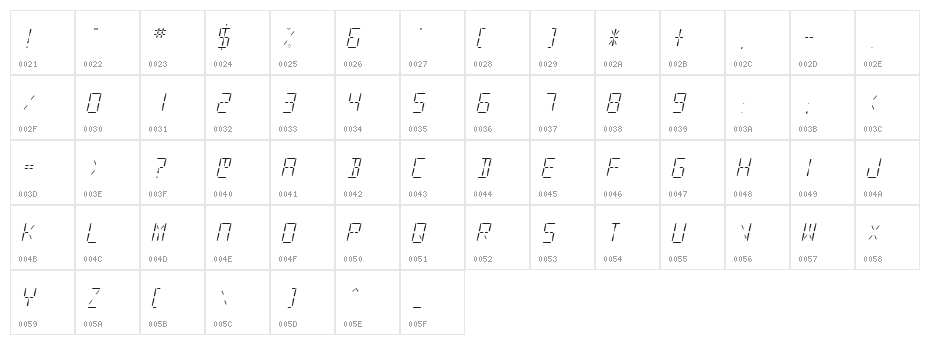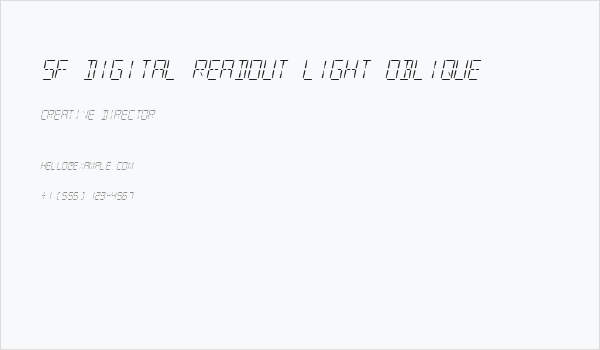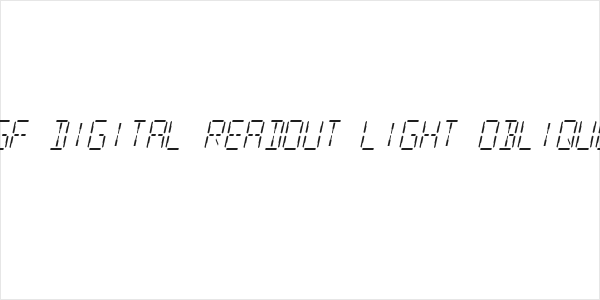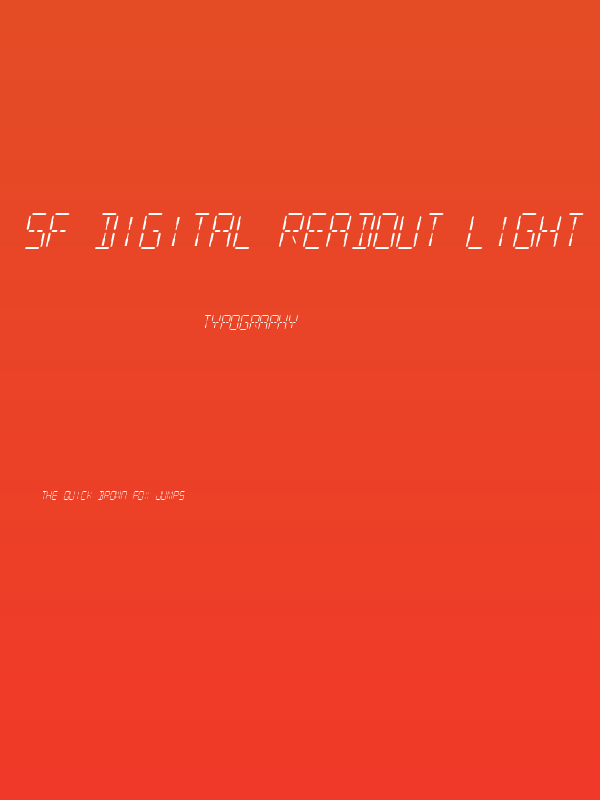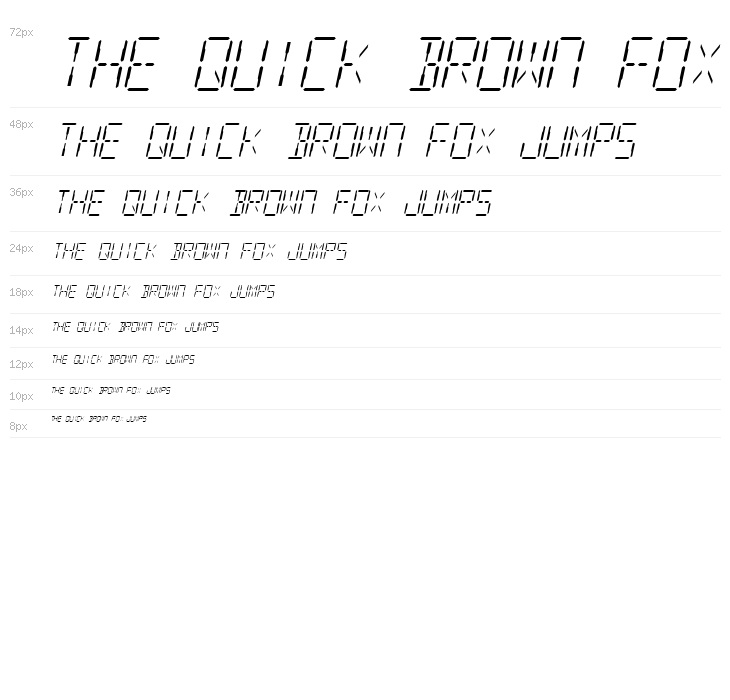
SF Digital Readout Light Oblique Font
SF Digital Readout Light Oblique Description
This font features a digital, futuristic style reminiscent of LED or LCD displays. The characters are composed of segmented lines, giving them a mechanical and technical appearance. The oblique angle adds a dynamic and modern touch, enhancing the sense of movement and speed. Each letter and number is clearly defined, making it highly legible even at smaller sizes. The font's design is consistent across uppercase, lowercase, and numeric characters, maintaining a cohesive look. Special characters are also included, following the same segmented style.
| Use Case | Headlines, Logos, Digital displays |
| Proposed Projects | Ideal for digital interfaces, tech-themed designs, futuristic branding, and display screens. |